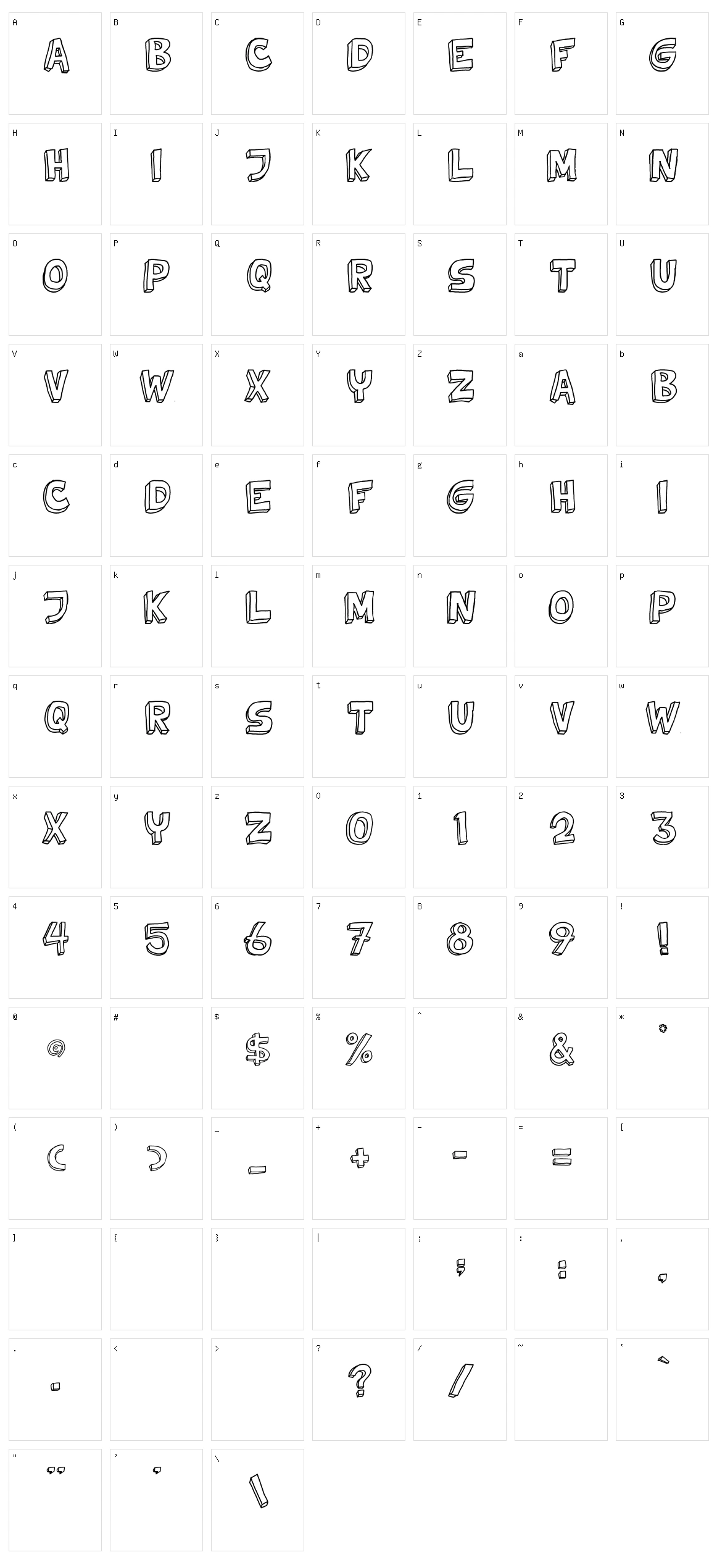
Tweedy ver.02
By Eric Wirjanata. April 2010
The name taken after Jeff Tweedy
just another version made for the previous font.
Note#2: This typeface is ideal for logos and general design.
It isn't very suitable to be used with word-processors as it lacks some symbols and letters.